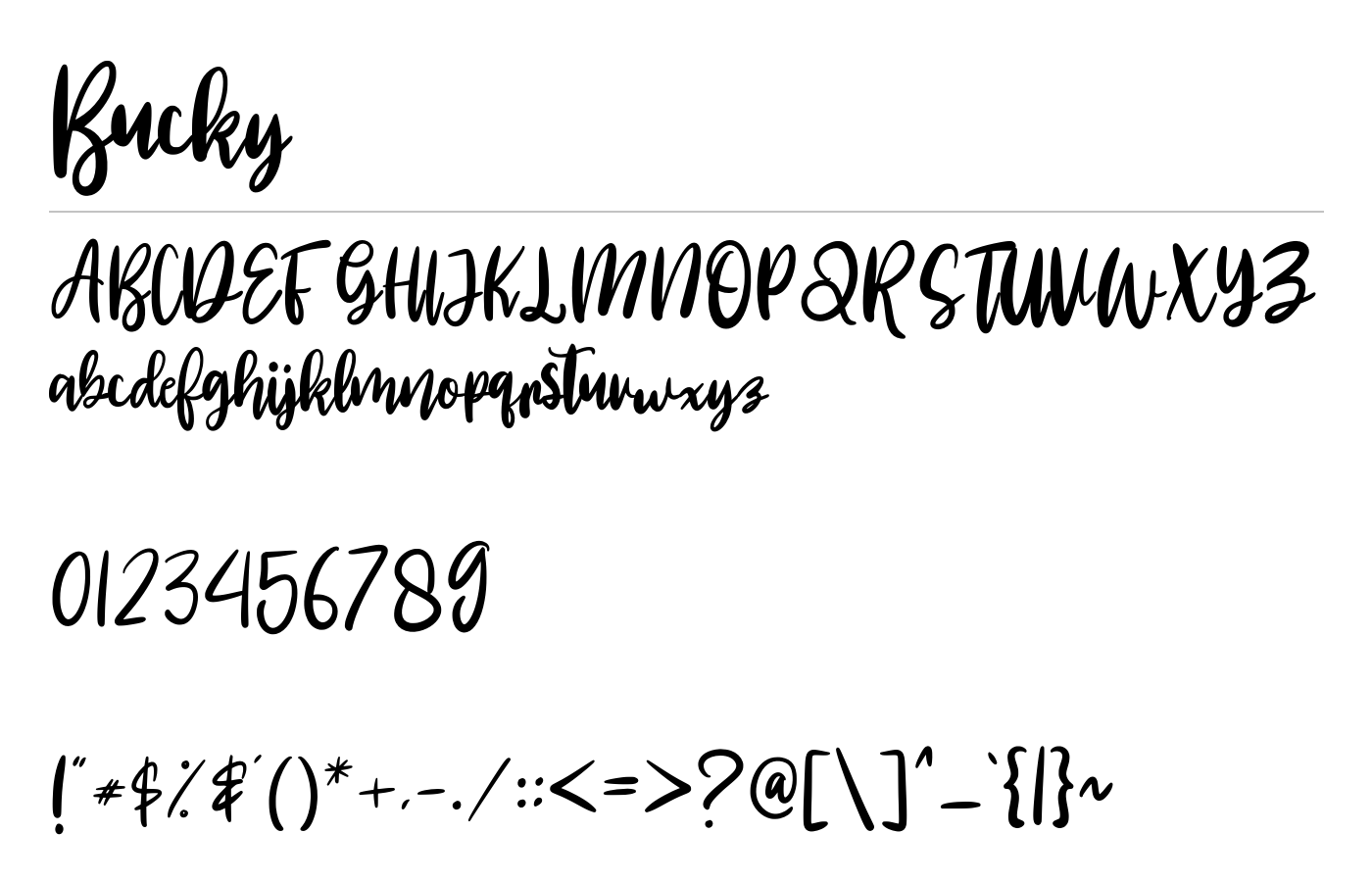
Bucky Font is a playful, handwritten script with smooth, flowing strokes and a lively, casual feel. Its moderately bold weight and upright style make it ideal for creative projects that need a personal touch, such as invitations, branding, and social media graphics. This font’s friendly personality and clear letterforms bring charm and warmth without sacrificing legibility.
Bucky Font
About Bucky Font